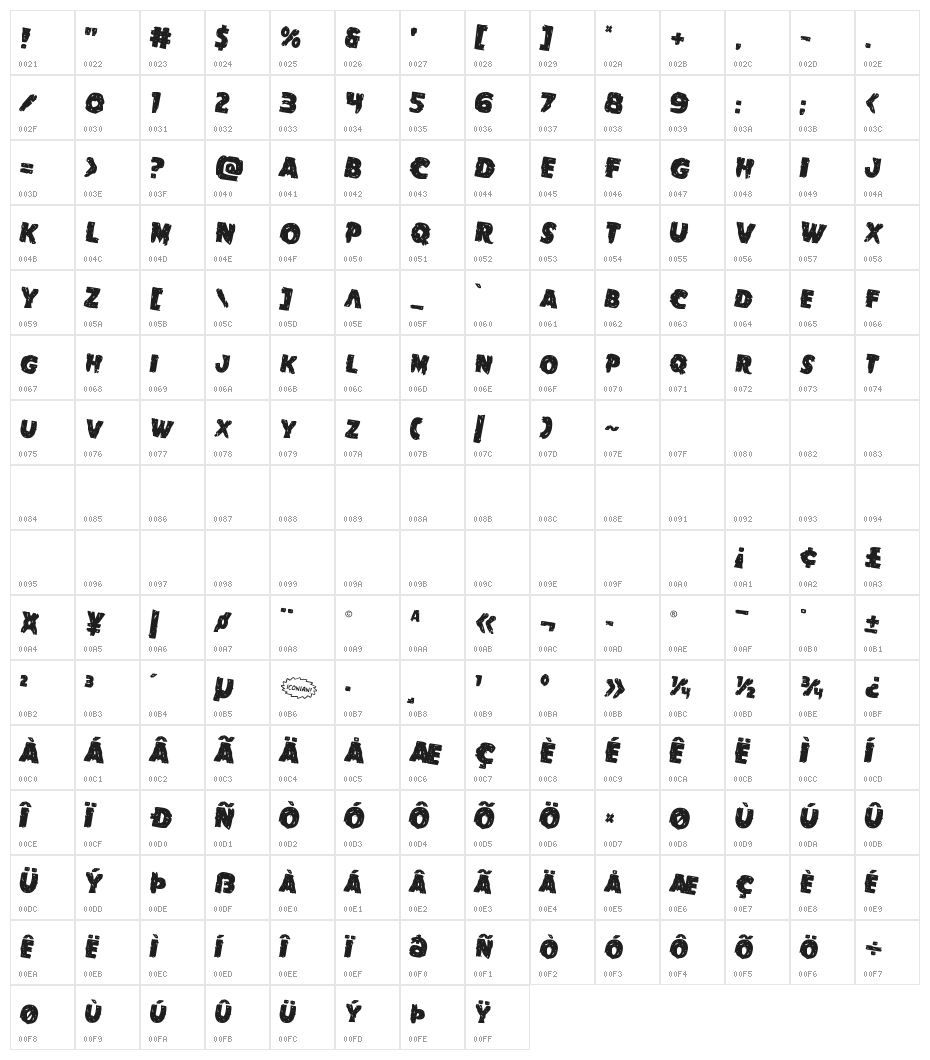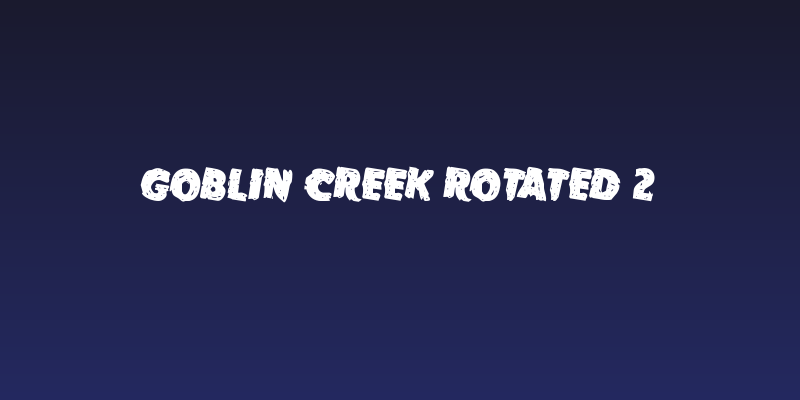
Goblin Creek Rotated 2 Font
Goblin Creek Rotated 2 Description
This font features a bold and playful design with a distressed, grungy texture that gives it a unique and eye-catching appearance. The characters are heavily stylized with irregular edges and a dynamic, energetic feel. The uppercase and lowercase letters maintain a consistent style, while the numbers and special characters complement the overall aesthetic. This font's boldness and distinctive texture make it ideal for projects that require a strong visual impact.
Proposed ProjectsPerfect for Halloween-themed designs, posters, video game graphics, and any project needing a bold, edgy look.